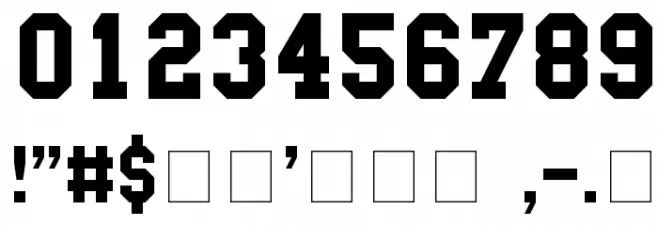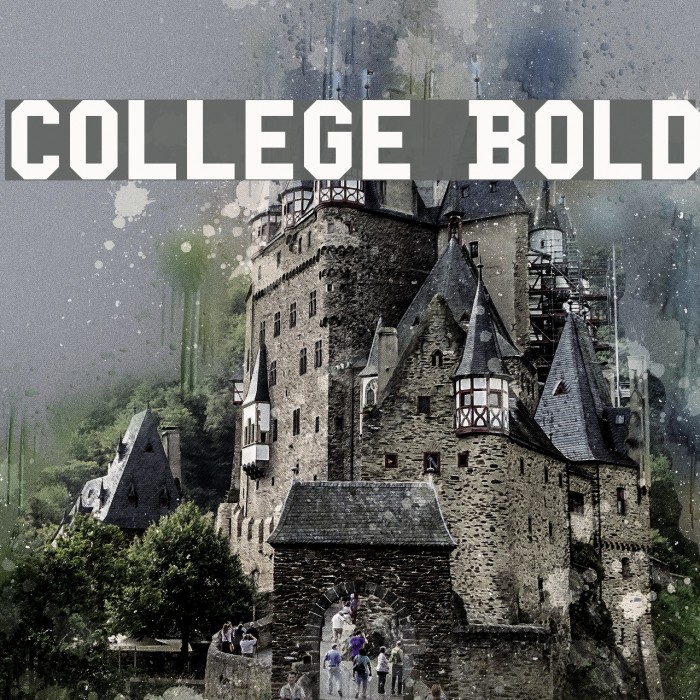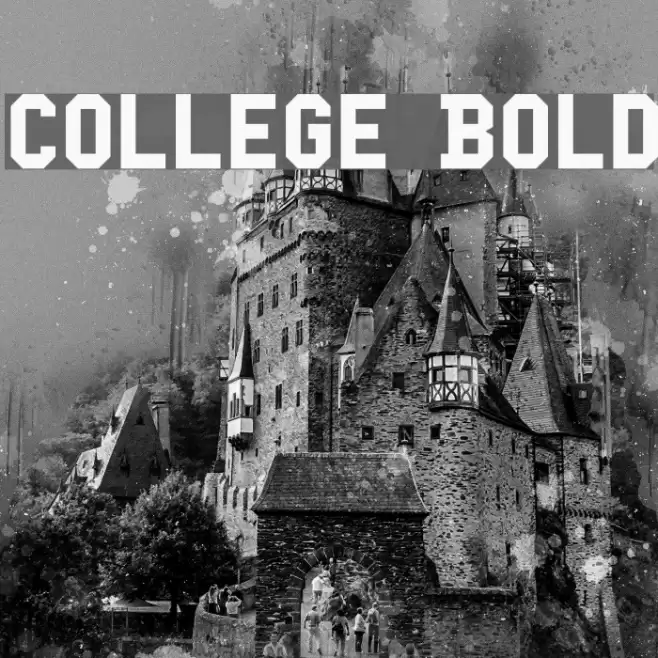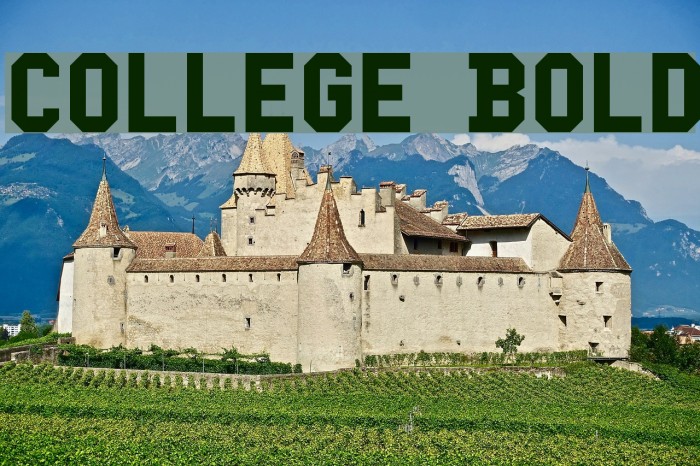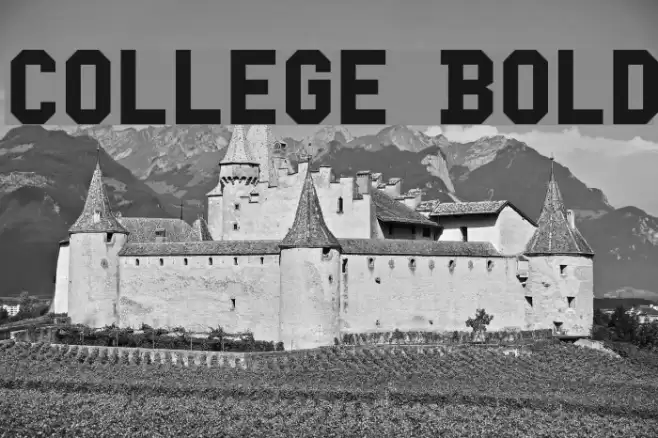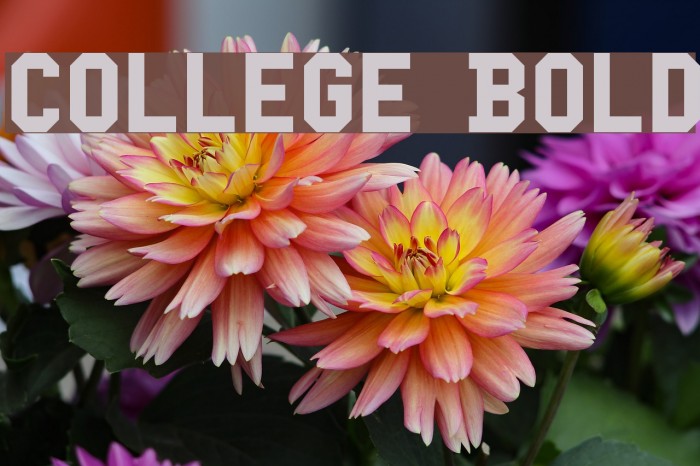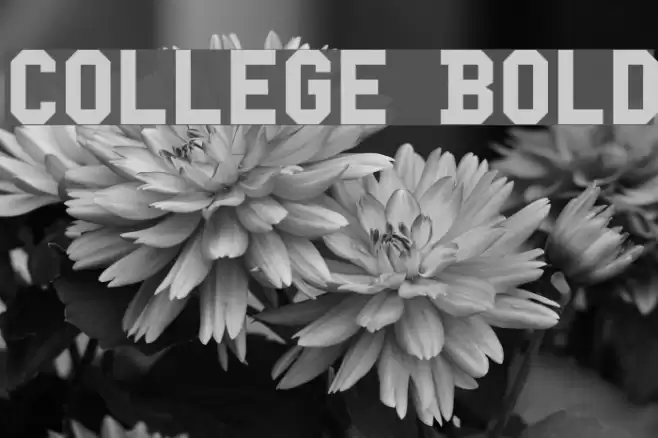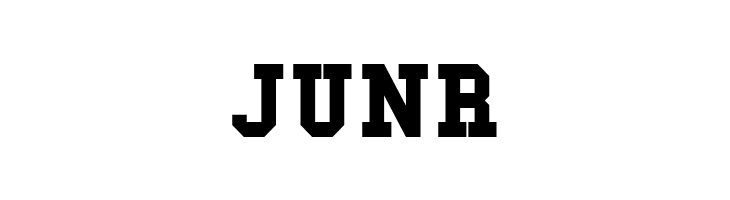
College Bold Font
College Bold Description
This font features a bold, collegiate style with strong, block-like characters that convey a sense of strength and tradition. The uppercase letters are particularly prominent, with thick strokes and a uniform width that gives them a commanding presence. The numbers and special characters maintain this robust style, ensuring consistency across all elements. The font's design is reminiscent of classic varsity and sports team lettering, making it ideal for projects that require a bold and authoritative look.
| Overall Style | Classic |
| Proposed Projects | Ideal for sports team branding, university merchandise, posters, and headlines that require a bold, traditional look. |